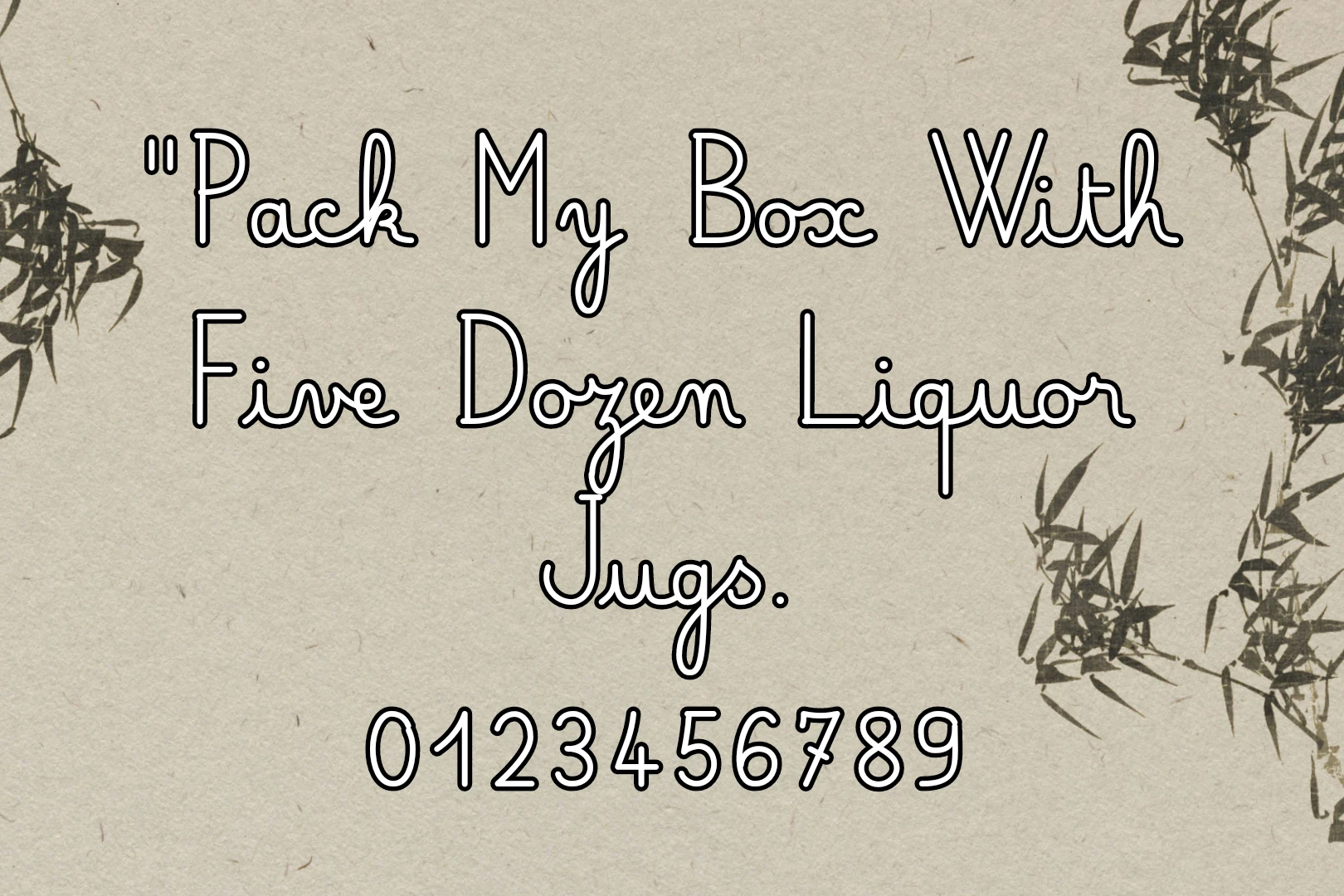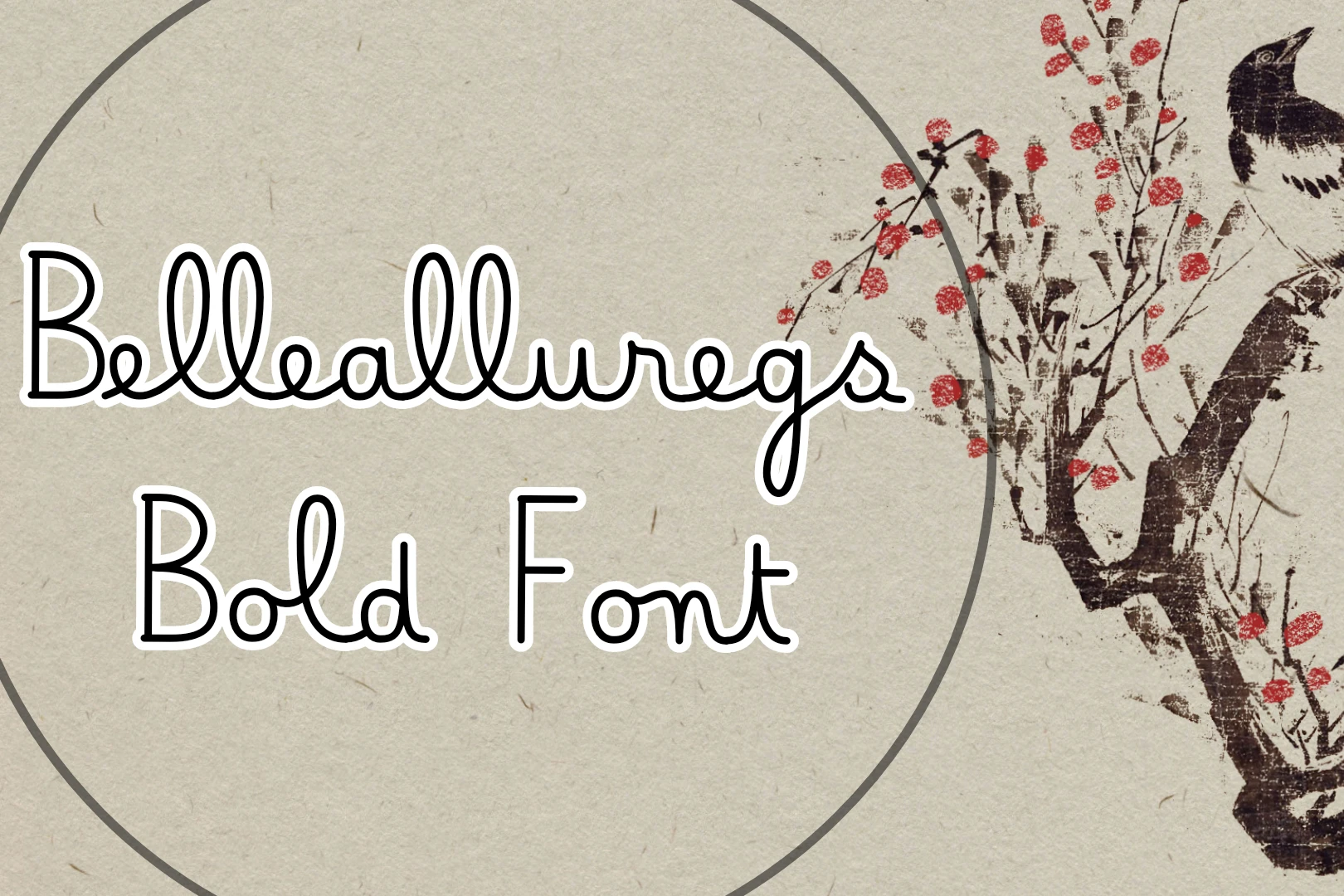
Bellealluregs Bold Font is an exceptional typeface created and released by JB Foundry. This font stands out as a top-notch design, resembling a handwritten signature style. Originally crafted by JB Foundry, it offers versatility for various applications, making it an ideal choice for signatures, logos, and printing purposes.
In this article, we’ll explore the unique features of this Font and its potential applications. This font is available in common font file formats such as TrueType (TTF) and OpenType (OTF), ensuring compatibility across various design software. Its character set includes a comprehensive range of glyphs, encompassing uppercase and lowercase letters, numerals, punctuation marks, and special characters.
Usage of Bellealluregs Bold Font
It is a versatile typeface that extends its application beyond just signatures and logos. Designers and creatives can leverage its unique qualities for a wide range of projects. It brings a distinctive touch to any project, providing a handwritten signature feel.
Whether you’re looking to add a personal touch to a digital signature, create a memorable logo, or enhance printed materials, this font excels in delivering a sophisticated and authentic look. Its versatility allows it to seamlessly integrate into different design contexts, offering a timeless and elegant aesthetic.
Branding Collateral: Incorporate Bellealluregs Bold Font into branding materials such as business cards, letterheads, and packaging. The font’s distinctive handwritten style adds a touch of elegance, making the brand memorable and sophisticated.
Digital Media: Enhance digital content such as social media graphics, blog banners, and website headers with Bellealluregs Bold Font. Its bold and stylish appearance ensures readability and visual appeal across various digital platforms.
Invitations and Greeting Cards: Elevate the design of invitations, greeting cards, and announcements by using Bellealluregs Bold Font. Its graceful strokes and personalized feel contribute to creating invitations that leave a lasting impression.
Product Labels and Packaging: Implement Bellealluregs Bold Font on product labels and packaging to convey a sense of authenticity and craftsmanship. The font’s handwritten nature adds a human touch, making the product packaging stand out on the shelves.
Printed Materials: Whether designing brochures, posters, or flyers, Bellealluregs Bold Font can enhance printed materials with its refined appearance. It brings a level of sophistication to promotional materials, making them visually appealing and engaging.
Photography Watermarks: Photographers can use Bellealluregs Bold Font as a watermark on their images. The signature-style font adds a personalized touch to photos, serving as a subtle yet effective branding element.
Event Signage: For events such as weddings or corporate gatherings, Bellealluregs Bold Font can be applied to signage, name cards, and event programs. Its elegant design complements the formal atmosphere of such occasions.
Similar Fonts to Bellealluregs Bold Font
Malaga Script Font: Malaga Script typeface is an excellent choice for those seeking a sophisticated handwritten font. Its fluid strokes and natural flow make it well-suited for creating personalized signatures, logos, and other design elements that require an elegant touch.
Elegant Script: With a name that speaks for itself, Elegant Script delivers a graceful and stylish script font. This typeface is versatile, making it suitable for a wide range of design projects where a touch of sophistication is essential.
Luxurious Script: Luxurious Script lives up to its name by offering a font that exudes luxury and refinement. It is an ideal choice for projects that demand an opulent and upscale feel, such as high-end branding or exclusive event invitations.
Handwritten Elegance: As the name suggests, Handwritten Elegance combines the charm of handwritten fonts with an element of sophistication. This font is well-suited for various creative applications, adding a touch of class to your designs.
Graceful Calligraphy: Graceful Calligraphy is a font that embodies grace and charm in its letterforms. It is particularly suitable for invitations, branding, and decorative elements where a calligraphic style is desired to convey a sense of artistry.
While it mostly comes in a bold style, some font families might offer additional versions like regular, italic, or light.